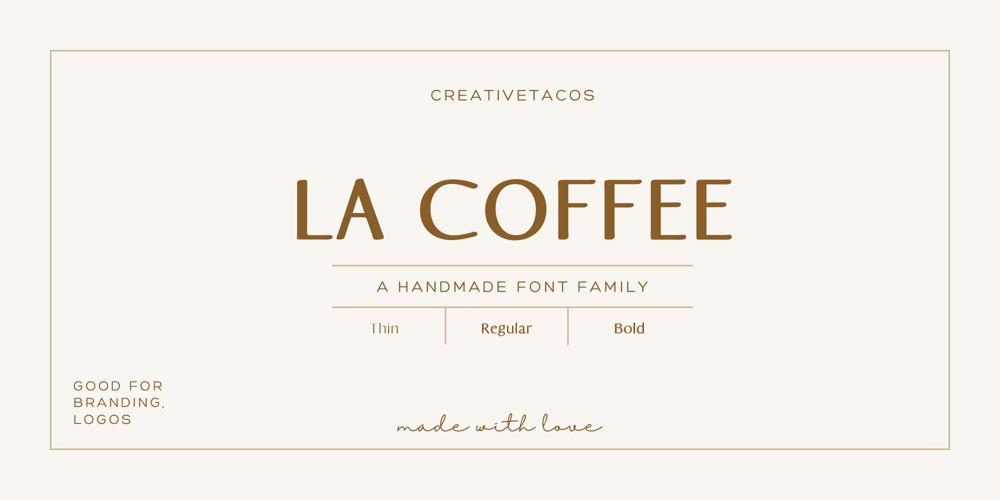
La Coffee
La Coffee font
La Coffee Font Family was designed by Faraz Ahmad and published by Creativetacos. La Coffee contains 3 styles and family package options. Introducing La Coffee Font, a sleek, cool and professional handmade font that is perfect for adding a unique touch to your branding, logos, or your instagram quotes.It includes uppercase, lowercase, numbers, symbols and with Latin extended character support, it is versatile for a variety of creative endeavors, while exuding a rustic charm.La Coffee will look great on invitations, packaging, slideshows, logos, headlines, lettering, posters, branding, inspirational quotes, headlines, magazine layouts, website designs, advertising, invitations, packaging designs, book covers and any other creative endeavour.What’s Inside the Product?- Weight of the Font: RegularThe Font Kit comes packed with:- Big Letters (Uppercase)- Small Letters (Lowercase)- Numbers & Symbols- Multilingual SupportHere’s a sneak peek at the characters supported:- All the letters from A-Z (uppercase and lowercase)- All the numbers from 0-9- All these special characters – !”#$%&'()*+,-./:;=?@[]^_`{|}~ ¡¢£¤¥§¨©ª«­®°±²³´¶¸¹º»¿ˆˇ˜–—‘’‚‛“”„†‡•…‰‹›⁄€™−- And a range of international characters like ­á â à ä å ã æ ç é ê è ë í î ì ï ı ñ ó ô ò ö õ ø œ š ß ú û ù ü ý ÿ ž  À Ä Å Ã Æ Ç É Ê È Ë Í Î Ì Ï Ñ Ó Ô Ò Ö Õ Ø Œ Š Û Ù Ü Ý Ÿ